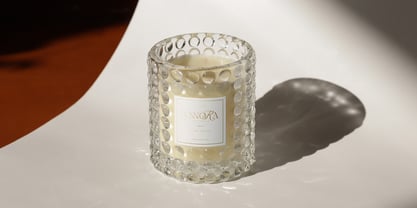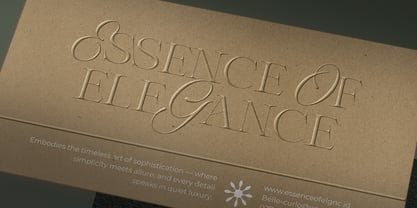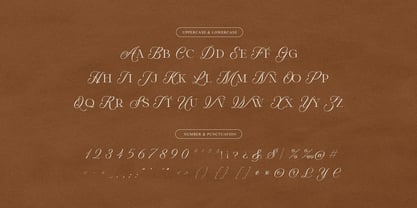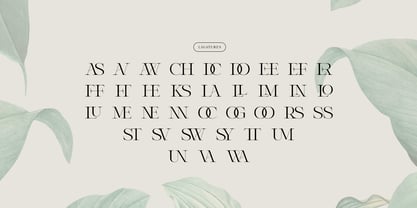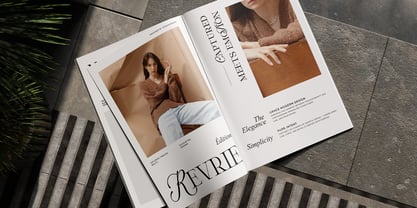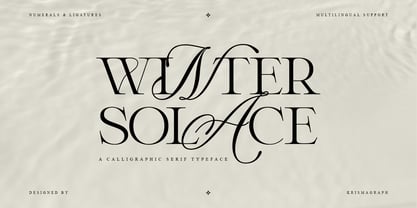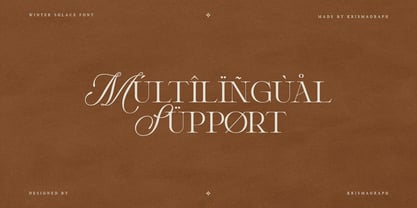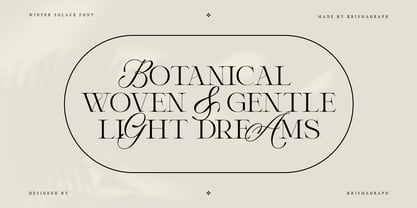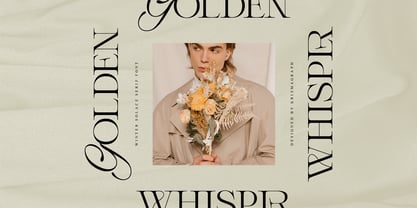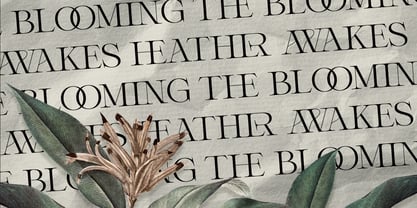
Winter Solace
Die Schriftfamilie Winter Solace wurde von Ratna Krismawati entworfen und von Krismagraph veröffentlicht. Winter Solace enthält 1 Stile. Mehr über diese Familie
Winter Solace is a calligraphic serif typeface that embodies sophistication and artistry. Its graceful contrast between thick and thin strokes creates a refined visual rhythm — making it ideal for editorial layouts, branding, luxury packaging, and high-end design projects. Featuring elegant ligatures and numerals, this typeface combines classical calligraphic details with modern serif structure, resulting in a timeless and striking look. Perfect for designers who seek beauty, balance, and authority in typography. What you get : - Winter Solace File - Numbers, fractions - Punctuation and symbols - Alternates - Ligatures - Multilingual support Feel free to follow, like, and share. Thank you and I hope you enjoy it!
Krismagraph is an independent typeface design studio based in Temanggung, Indonesia, founded in 2018 by type designer Ratna Krismawati. The studio creates contemporary and carefully crafted typefaces for commercial projects.Krismagraph is currently developing retail type families with their unique voice especially designing font with various style Modern and Classic Typeface. Producing high-quality typefaces with a strong character that boosts the distinctive communication purposes of a brand or project.